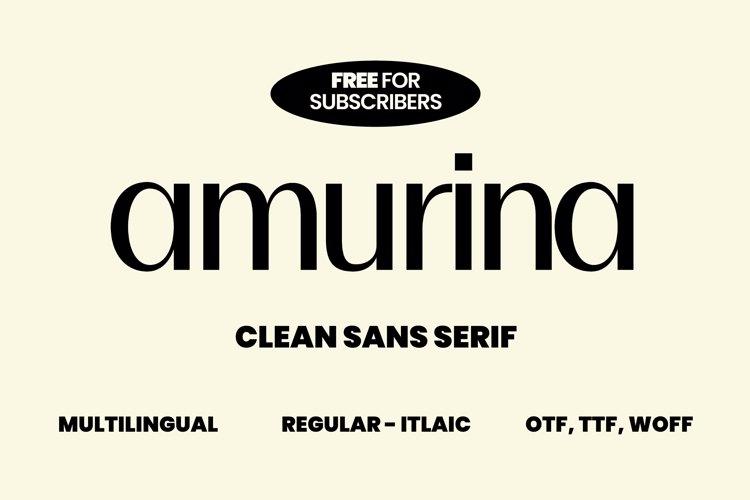
Amurina Font
๐จ Font Name: Amurina by Minimalist Art Studio
๐จ Font Description: Amurina is a clean sans serif with delicate elegance and multilingual supportโperfect for beauty branding, minimalist layouts, and poetic design.
โ Complete Latin set + multilingual diacritics
โ Alternates, stylistic sets & ligatures
โ Numbers, small caps, and extended punctuation
โ Bonus italics and family styles